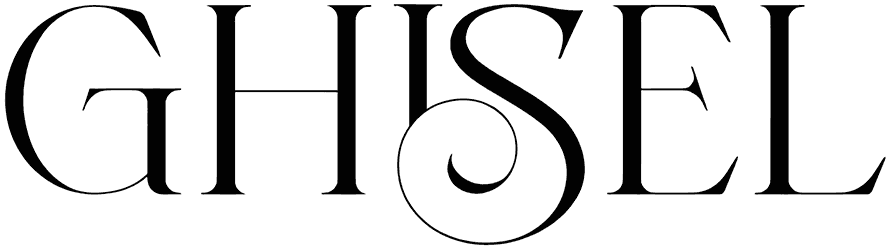
Ghisel Font
If you’re looking for a handsome serif font and you haven’t gotten anywhere, Ghisel will finally put an end to your search. This is the kind of tall and elegant font you should go with when you’re trying to pull out all…
If you’re looking for a handsome serif font and you haven’t gotten anywhere, Ghisel will finally put an end to your search. This is the kind of tall and elegant font you should go with when you’re trying to pull out all the stops to impress your audience.
Poetry book covers, luxury event posters, and fashion apparel logos are only a few examples of where you can find Ghisel. It may lack the lowercase letters, but it has prestige instead.